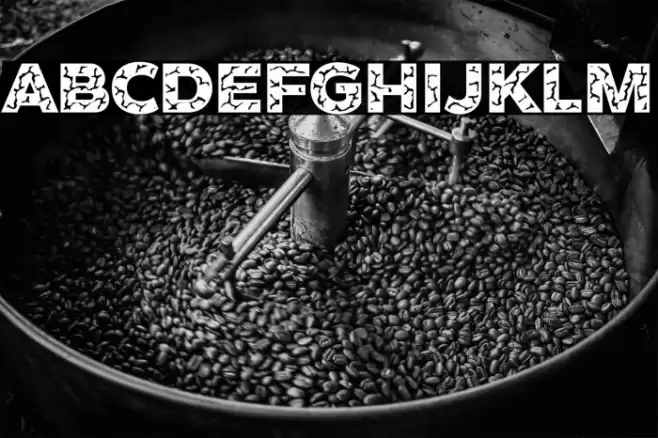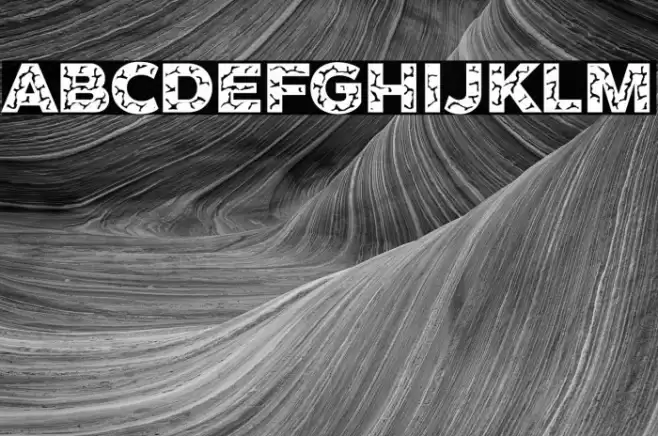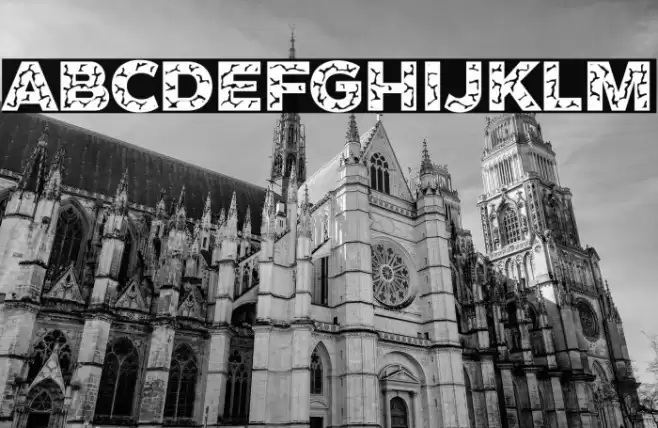
Giraffe Font
Giraffe Description
This font features a bold, playful design with a unique pattern reminiscent of giraffe spots within each character. The letters are uppercase and lowercase, with a consistent thickness and a decorative style that stands out. The pattern adds a whimsical touch, making it ideal for projects that require a fun and eye-catching typeface. The characters are evenly spaced, ensuring readability while maintaining the decorative appeal. This font is perfect for creative projects where a distinctive and lively appearance is desired.
A bold, playful font with giraffe-like spot patterns inside each character from Uncategorized fonts.
- Font: Giraffe
- Proposed Projects: Ideal for children's books, playful branding, party invitations, and creative posters.